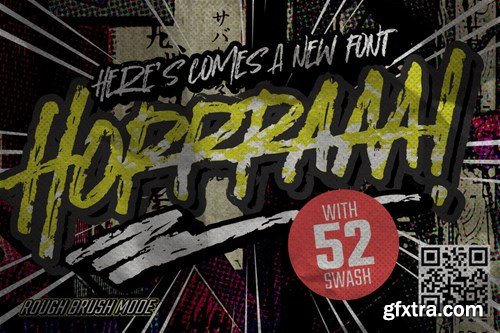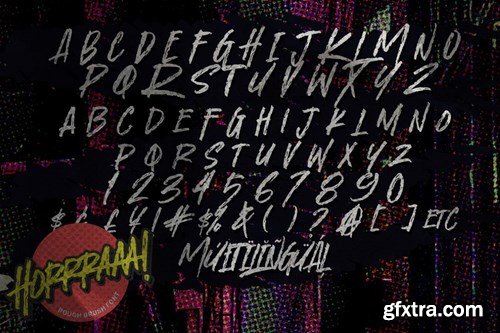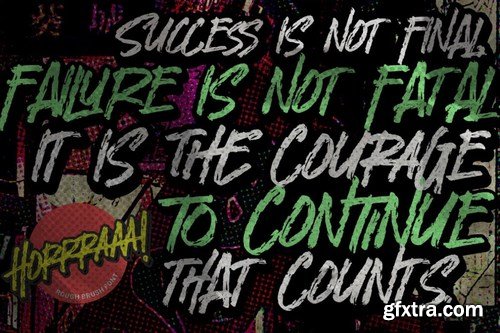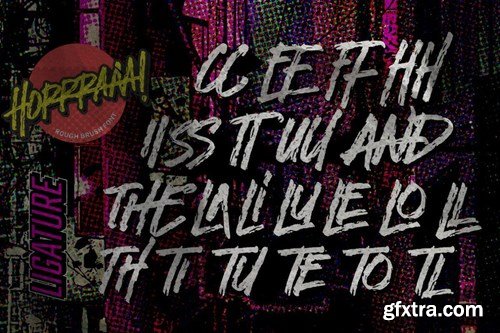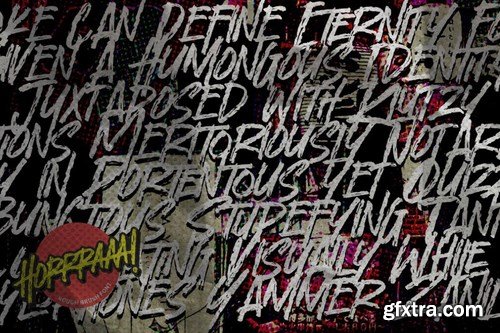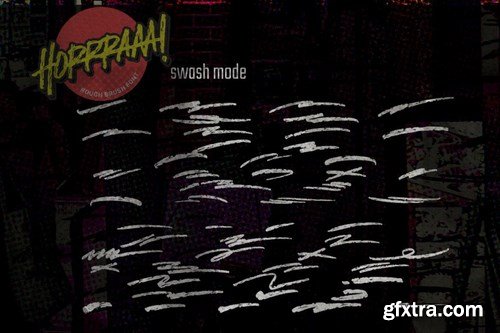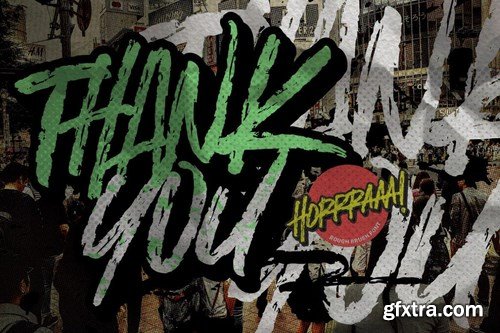
Horrraaa - Handwritten Brush font with a Rough style and dramatic movement. This font is great for your next creative project such as logos, printed quotes, invitations, cards, product packaging, headers, Logotype, Letterhead, Poster, Label, and etc.
Standard glyphs
Ligature
Multilingual